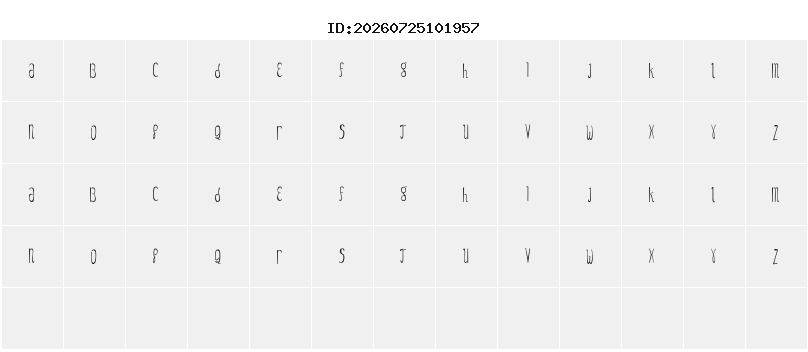
• Font Name: Gezzy
• Font Style: Condensed Thin
• Designer: Gabby Burleson
Gezzy.ttf is a modern, elegant sans-serif font designed for ultimate readability and visual harmony. Perfect for branding, headlines, web design, and print materials.